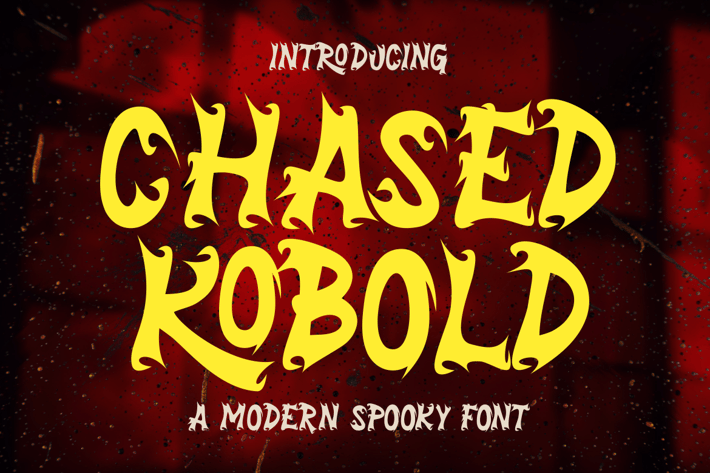
Chased Kobold - A Modern Spooky Font
Introducing our new product Chased Kobold Font - Modern Font
Chased Kobold Font - Modern Font is a bold and authentic display font. The font is suitable for any branding project like logo, Template Design, Product and many more. outstanding in a wide range of contexts.